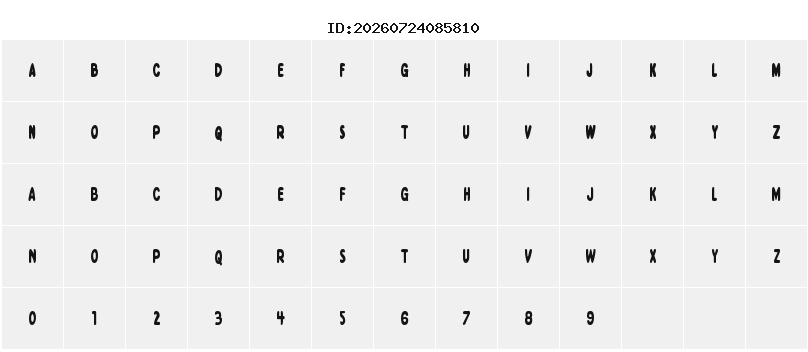
Excelsior Comics Condensed Preview
• Font Name: Excelsior Comics Condensed
• Font Style: Condensed
• Full Font Name: Excelsior Comics Condensed
About Excelsior Comics Condensed.ttf
Excelsior Comics Condensed.ttf is a modern, elegant sans-serif font designed for ultimate readability and visual harmony. Perfect for branding, headlines, web design, and print materials.